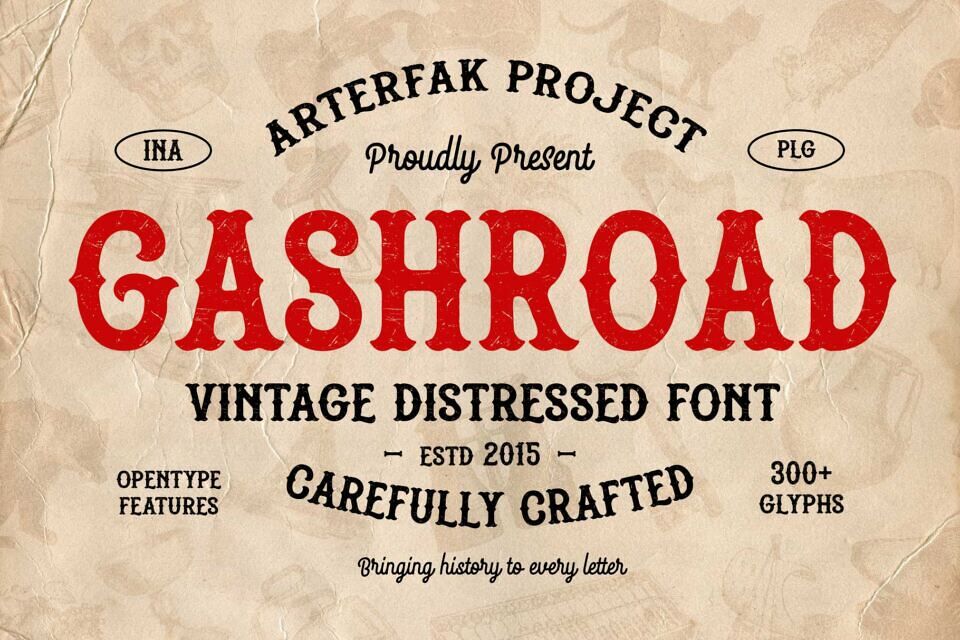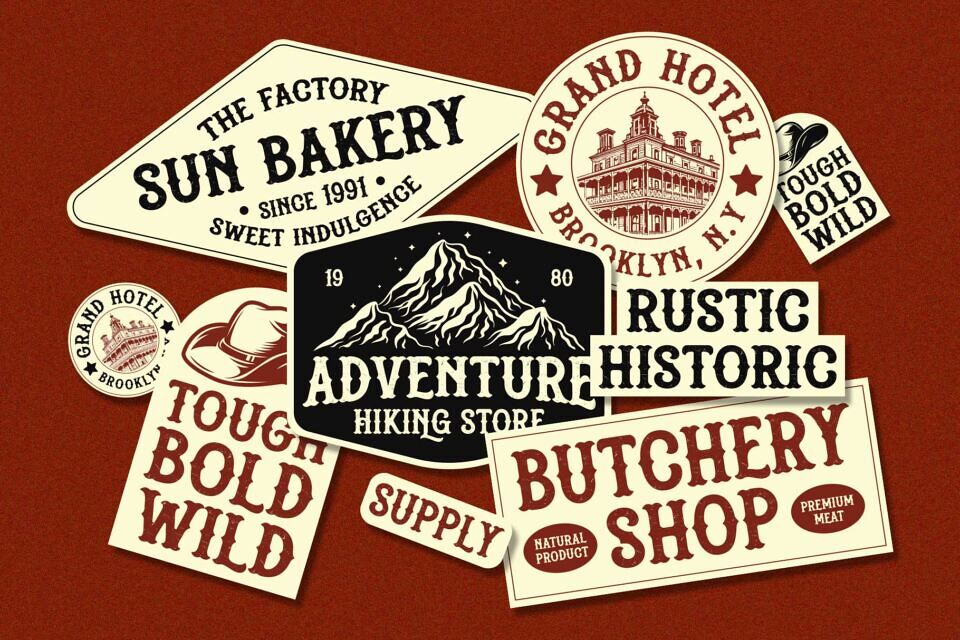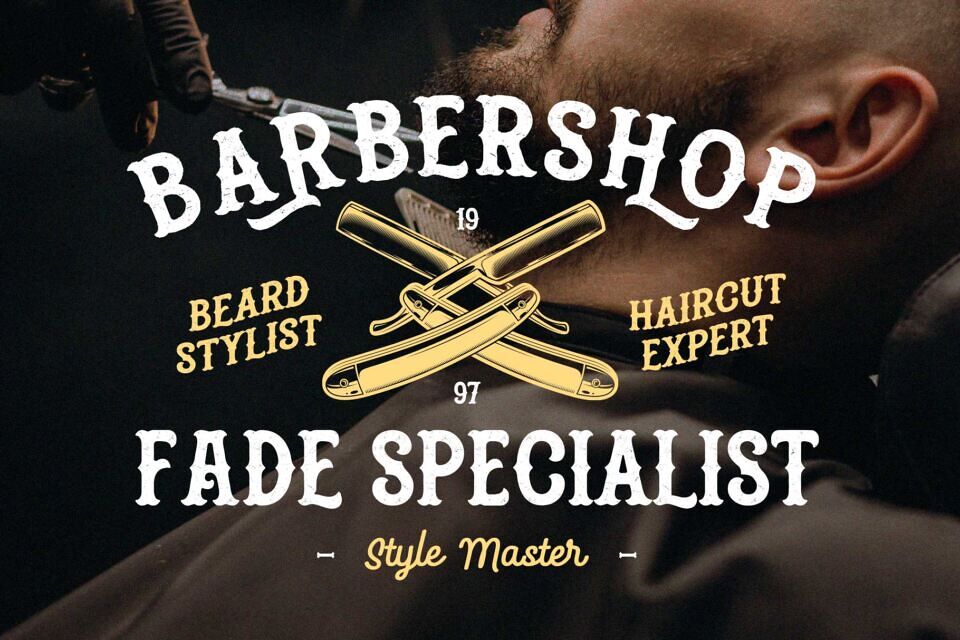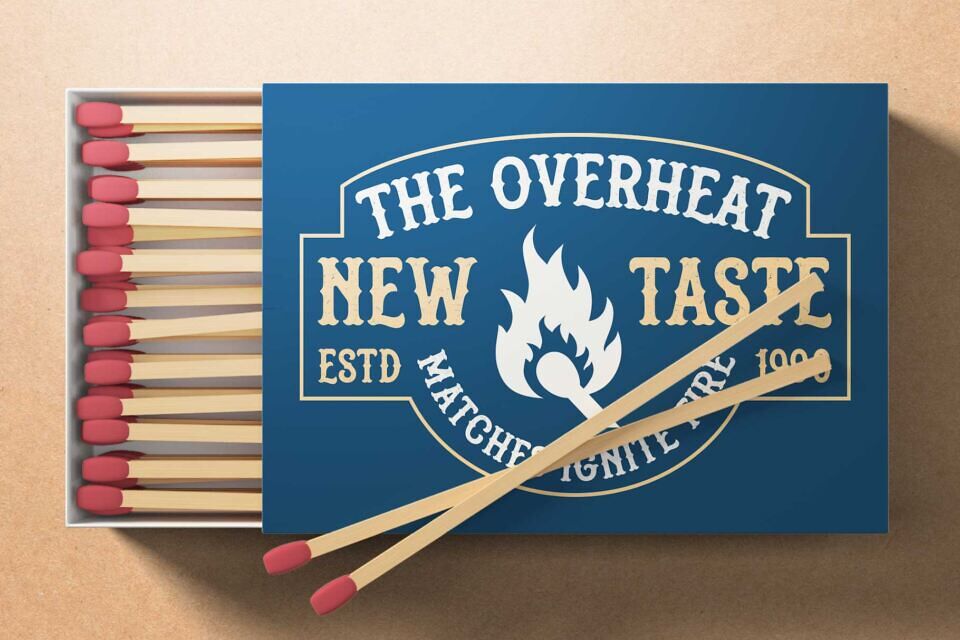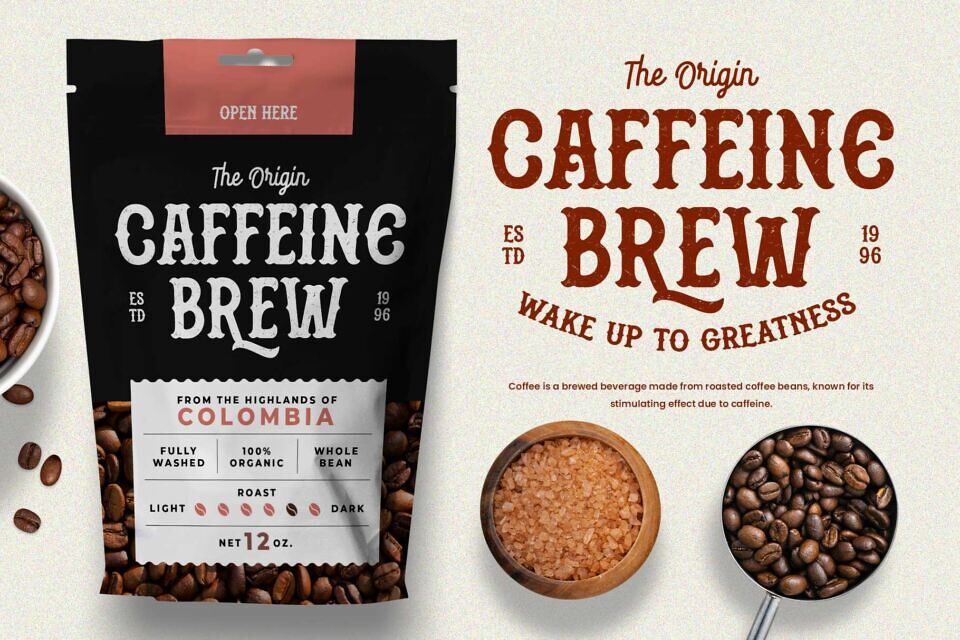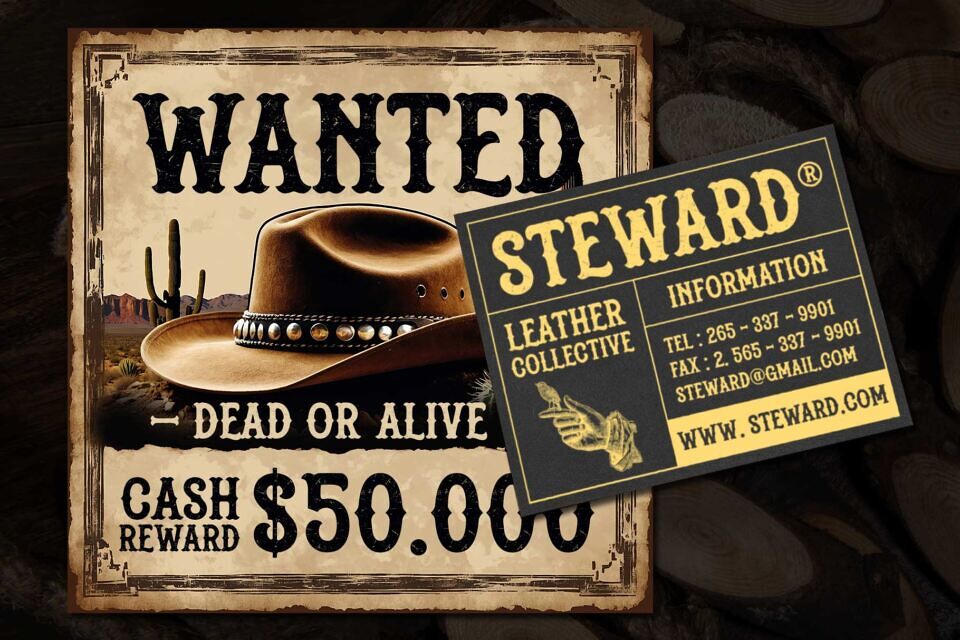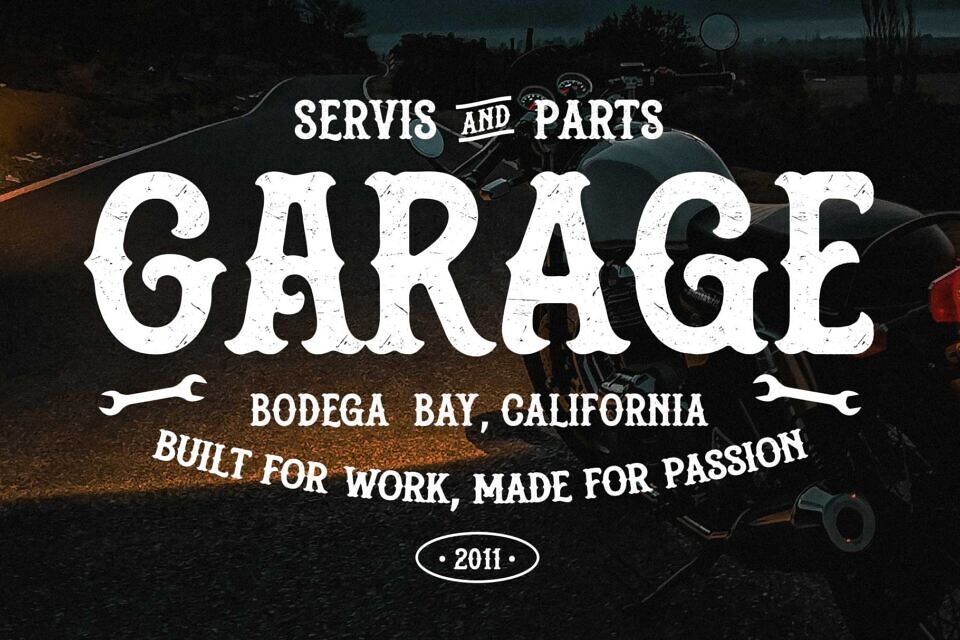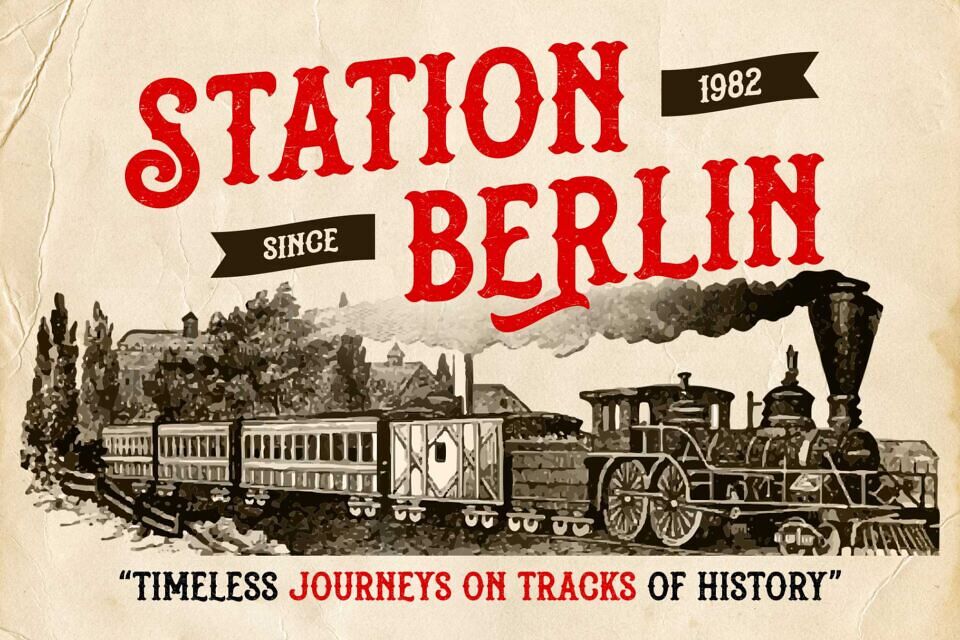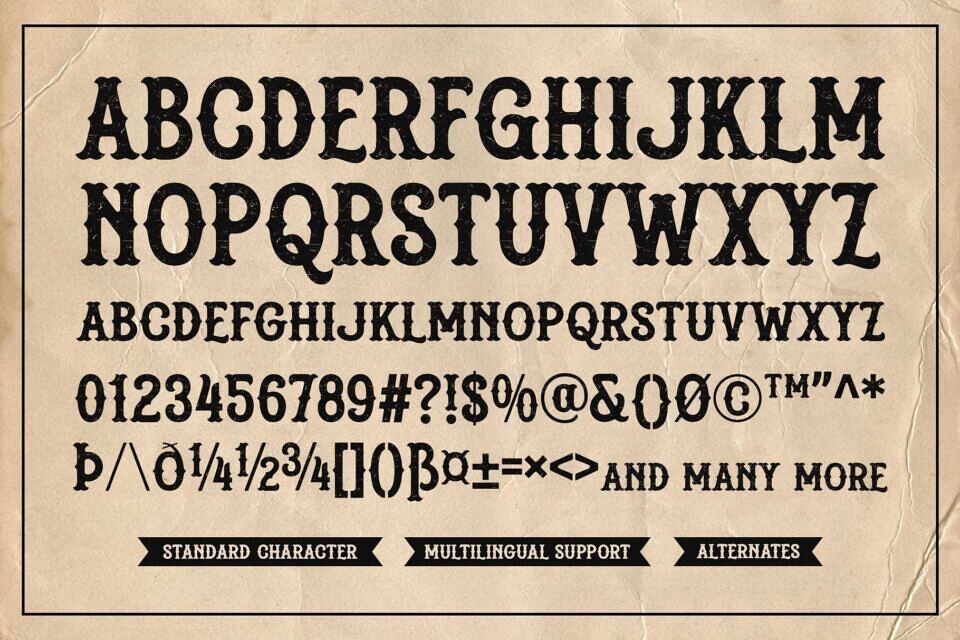
Gashroad Font
Gashroad is a handcrafted vintage font. Inspired by Western-style typography and vintage print labels, this font offers flexibility for your design.
Designed with a grunge effect, strong serifs & strokes, it’s perfect for those who need a vintage aesthetic style. This font is old and new at the same time, including beautiful alternate characters to give your design uniqueness and make it stand out.
Ideal for posters, logos, logotypes, labels, apparel, social media, books, flyers, advertising, and more!